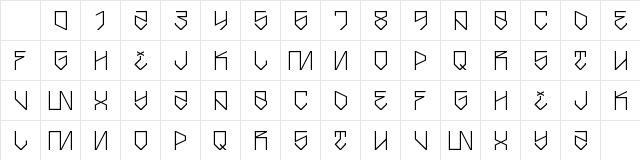
Strike Back is a composed and adaptable typeface that performs quietly and consistently across a wide range of design contexts.
Pro Tip: Use Strike Back in both headline and body roles to test its range before committing to a single application.